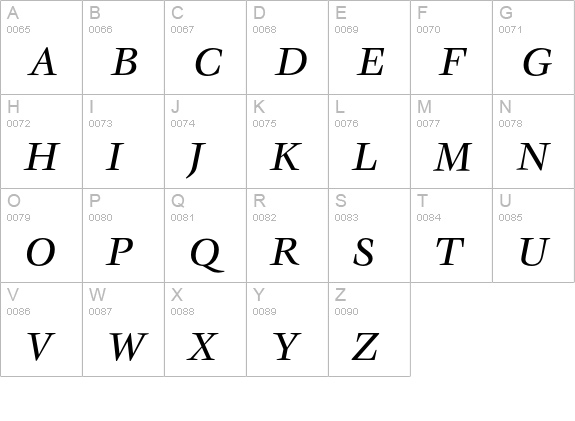
The VeljovicEF-MediumItalic font is a captivating and elegant typeface that effortlessly combines modern sophistication with timeless style. Its medium weight and slanted italic design add a touch of dynamism and flair to any text, making it perfect for conveying a sense of creativity and individuality. The beautifully crafted letterforms of VeljovicEF-MediumItalic exhibit a harmonious balance between classic calligraphic elements and contemporary design principles. With its flowing strokes and subtle curves, this font exudes a sense of grace and refinement, making it an ideal choice for projects that require a touch of elegance. Whether you're designing a logo, creating a brand identity, or crafting eye-catching headlines, VeljovicEF-MediumItalic offers versatility and versatility that can adapt to a wide range of design applications. Its legibility and readability ensure that your message is conveyed with clarity, while its unique personality adds a touch of distinction. What sets VeljovicEF-MediumItalic apart is not just its exceptional design, but also the fact that it is free to download. You can easily access this font at FontsMarket.com, where it is available for anyone to use and enjoy. This makes it an invaluable resource for designers, creatives, and typographers who are looking for a high-quality font that doesn't come with a hefty price tag. In conclusion, VeljovicEF-MediumItalic is a stunning typeface that combines elegance, versatility, and accessibility in one package. Its freely available nature at FontsMarket.com allows designers to unleash their creativity without any restrictions. So why wait? Download VeljovicEF-MediumItalic today and elevate your designs to new heights.